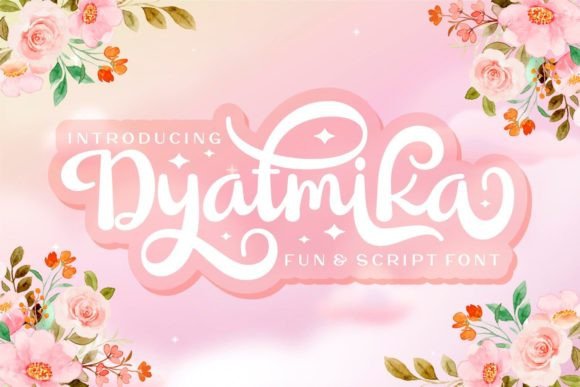
Introducing Dyatmika Font, the script font that will infuse your designs with a delightful dose of joy and playfulness! Created by the talented designer Rifki from 7ntypes, this lovely handwritten font is guaranteed to captivate your audience and bring a touch of whimsy to any project.
With its bouncy and flowing letterforms, Dyatmika Font exudes a carefree and lighthearted vibe, making it an ideal choice for various creative endeavors. Whether you're designing invitations, greeting cards, or even a modern website, this font is bound to elevate your work to new heights.
Immerse yourself in the world of Dyatmika Font, where each stroke of the pen carries a sense of enchantment. Its charming curves and elegant lines will effortlessly draw attention and create an emotional connection with your audience. Every character has been meticulously crafted to exude a distinct personality, leaving a lasting impression on anyone who lays eyes on it.
Let your creativity run wild as you explore the endless possibilities that Dyatmika Font offers. Its versatility allows you to experiment with different styles and create designs that truly stand out. From playful and whimsical to sophisticated and elegant, this font can adapt to any mood or theme you desire.
Not only does Dyatmika Font bring a touch of magic to your designs, but it also enhances the readability and legibility of your text. Its carefully balanced letterforms ensure that every word is easily read and understood, making it a reliable choice for both headlines and body text.
Adding this font to your collection is like unlocking a treasure trove of creative potential. Stand out from the crowd and leave a lasting impression on your audience with Dyatmika Font. Download it now and let your imagination soar as you embark on a design journey filled with joy, playfulness, and endless possibilities.
Experience the whimsical charm of Dyatmika Font today and watch your designs come to life with a touch of magic. Whether you're a seasoned designer or just starting your creative journey, this font is the perfect companion to showcase your unique style and captivate your audience. Don't miss out on this opportunity to elevate your designs and make a lasting impact.